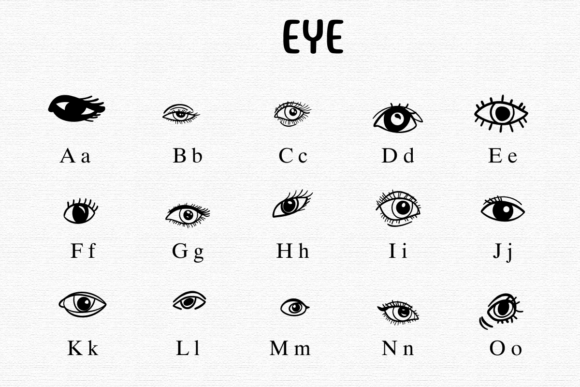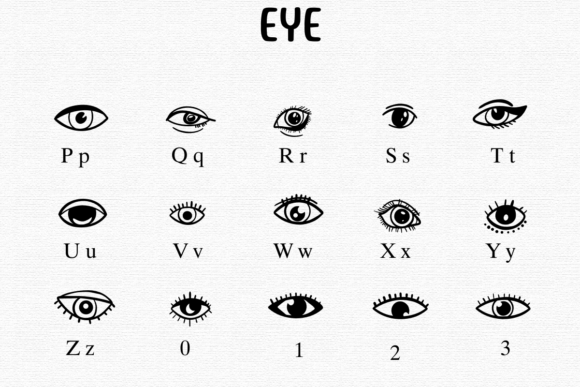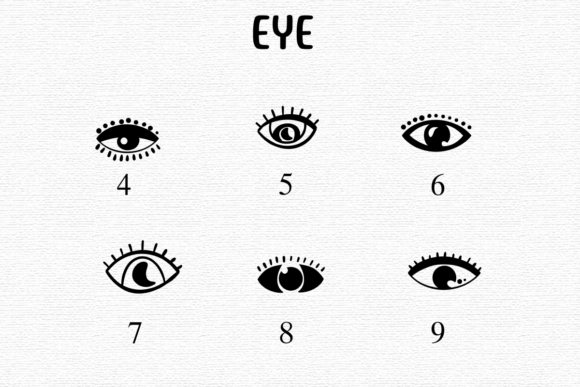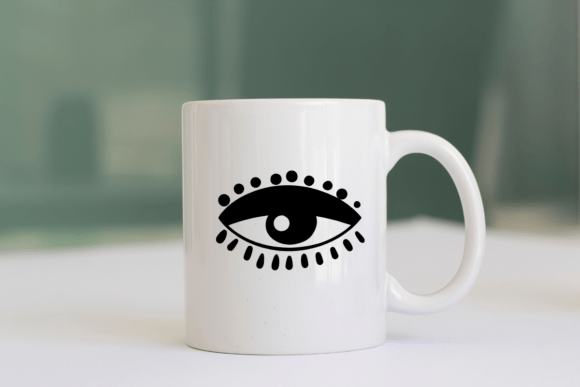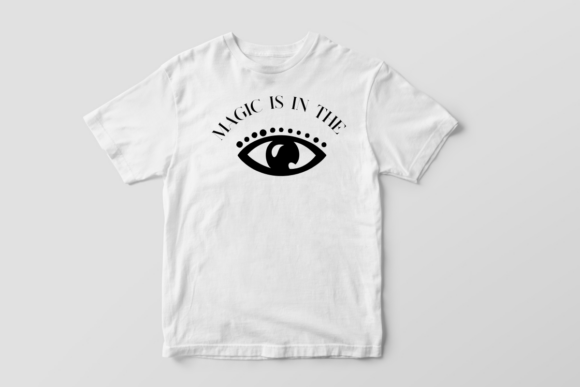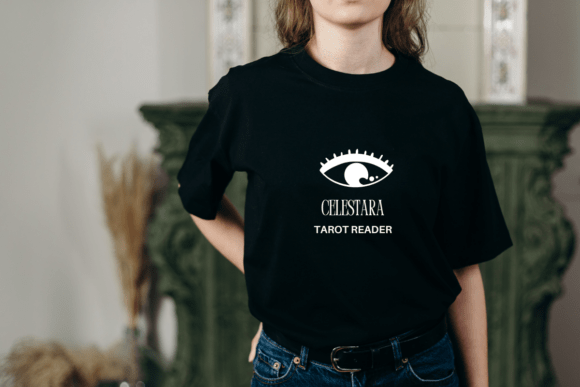
Introducing Eye Font: A Quirky and Expressive Dingbats Font for Designers
Are you tired of using the same old fonts in your designs? Look no further than Eye Font, a unique and expressive dingbats font that’s sure to add a touch of personality to your work. Featuring dozens of unique eye illustrations, Eye Font is perfect for design themes like vision, mysticism, self-expression, and fashion branding.
What is Eye Font?
Eye Font is a quirky and creative dingbats font that showcases a wide range of eye illustrations, from minimalistic lashes to detailed pupils and stylized stares. With its eclectic mix of designs, Eye Font is ideal for designers who want to add a bit of whimsy and flair to their work.
Key Features of Eye Font
• Dozens of unique eye illustrations: From simple and minimalist to detailed and intricate, Eye Font features a wide range of eye illustrations that are sure to inspire your creativity.
• Perfect for design themes like vision, mysticism, and self-expression: Whether you’re working on a project related to vision, mysticism, self-expression, or fashion branding, Eye Font is the perfect choice.
• Easy to use: Eye Font is a dingbats font, which means it’s easy to use and can be easily integrated into your design workflow.
• Scalable: Eye Font is designed to be scalable, so you can use it in a variety of design applications, from business cards to billboards.
Design Ideas with Eye Font
So, how can you use Eye Font in your designs? Here are a few ideas to get you started:
• Fashion branding: Use Eye Font to create eye-catching logos, advertisements, and marketing materials for fashion brands.
• Vision and mysticism: Create mystical and dreamlike designs that feature Eye Font’s detailed pupils and stylized stares.
• Self-expression: Use Eye Font to create bold and expressive designs that showcase your personality and style.
• Social media graphics: Use Eye Font to create eye-catching social media graphics that are sure to grab attention.
Tips for Using Eye Font
Here are a few tips for using Eye Font in your designs:
• Experiment with different sizes and colors: Don’t be afraid to experiment with different sizes and colors to find the perfect combination for your design.
• Use Eye Font with other fonts: Eye Font pairs well with a variety of fonts, so feel free to experiment with different combinations.
• Play with arrangement: Don’t be afraid to get creative with the arrangement of Eye Font’s eye illustrations.
Eye Font is a unique and expressive dingbats font that’s perfect for designers who want to add a touch of personality to their work. With its eclectic mix of eye illustrations, Eye Font is ideal for design themes like vision, mysticism, self-expression, and fashion branding. So why settle for boring, generic fonts when you can use Eye Font to create eye-catching designs that showcase your creativity and style?